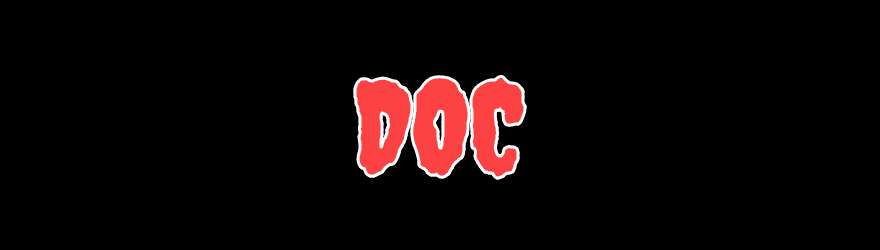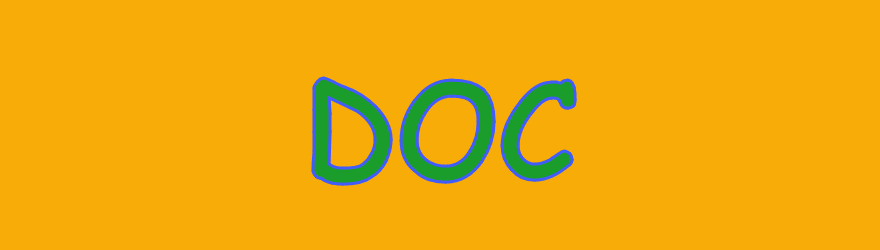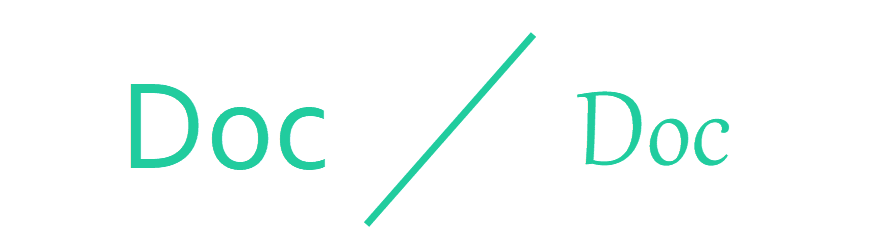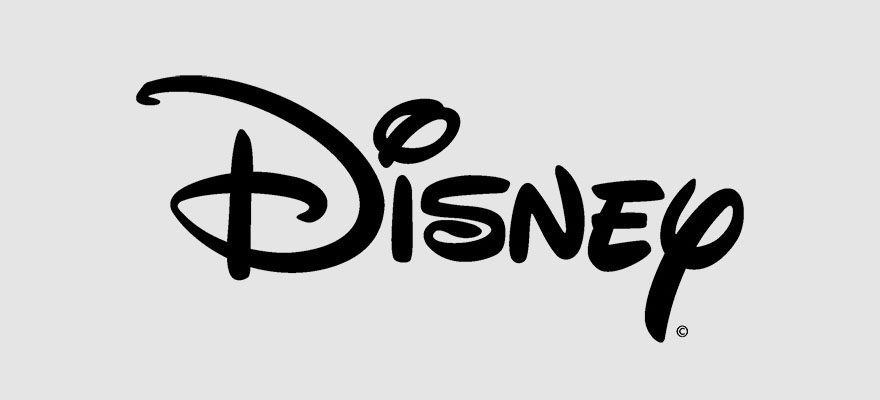
How to Choose the Best Fonts for Logos
Your logo is probably your brand’s single design asset that people see the most. It’s on your website, letterhead, promo materials, emails, icons, shirts, social media pages, and nearly everything else that you work with on a daily basis. So making sure that you choose the best fonts for logos is imperative. Whether it’s fair or not, first impressions matter. So do lasting impressions. And if you’re going be judged and remembered by something, you ought to make it as amazing as possible.
What This Article Is Not
When we talk about choosing the best fonts in this article, we aren’t talking about what you should be using for headers or body text on your website. Or whether you should be using serif or sans serif fonts in your email blasts. While some of the same criteria apply to those as well, we are going to be specifically focusing on what you have in a singular space that gets repeated over and over again.
The difference specifically is that your logo (and its respective font) will be plastered everywhere. So it will be used as a kind of springboard and cornerstone for the rest of your design aesthetic. You will choose complimentary fonts and typefaces for your website and promo materials, but they may not be the exact same. So while you may get some great ideas and starting points for overall designs in this piece, you’ll want to see some of our other font and design articles to flesh out the rest of your page-wide and brand kit decisions.
With that in mind, let’s get started choosing your brand’s new face. Typeface, that is!
1. Consider Your Brand’s Identity and Personality
When we say this, all we mean is to think about what your brand stands for and how people see it. Typefaces and fonts can very much drive the perception of a product or service, and you want one that invites people to think about your brand in a specific way.
For instance, if you’re designing a logo for a new doctor in town. They want their logo to simply be the letters Doc. How would you choose the correct typeface for them?
Well, first of all, you’d remember they’re a doctor. So using a font like Creepster is probably out. And so is this palette, but that’s a different article altogether.
However, if they’re a pediatrician, you might actually choose something playful and like Comic Sans. (Yes, Comic Sans is fine to use on occasion.)
And if they’re, say, a cardiologist or oncologist where the most professional (type)face has to be put forward at all times? You would want to choose something with a personality to match: an elegant script or serif font that’s easy to read and discern, like Corbel or Gabriola.
Regardless, the font you choose absolutely puts off a different feeling, and you’re going to need to look at whom you’re designing for and make sure that your choice lines up with theirs. That said, can you think of one particular element that all of these examples have in common? They’re readable by the largest swath of people who will see it.
2. Keep Things Legible
When choosing a font, making sure people know what it says is paramount. Take the Disney logo. We’ve all seen it thousands of times.
We know that it spells D I S N E Y. Right?
Wrong. Well, kind of. A number of people out there see that caligraphic D as a funky, backward G. They just can’t see the D.
Now, for Disney, modeling their logo after the founder’s signature is worth more than a subset of the population misinterpreting their logotype. Unfortunately for all of us, we are not Disney. So we have to be much more careful about the legibility of our fonts.
Using even a single ambiguous letter can make your logo go from memorable to forgettable. Or even worse to what in the world is it?
Honestly, this isn’t that hard to do. Just keep a few things in mind as you search around for the best fonts for logos:
• If the font has serifs, don’t let them overlap and obscure other characters
• Consider the readability at multiple sizes. Make sure you can read it at 5px, 12px, 500px, etc. Some get blown out of proportion when scaled.
• Like above, make sure the kerning and tracking is on point (though leading may be less of an issue). This is a very important issue for some sans-serif fonts as the letters can bleed together more easily.
• Check to make sure each character in the typeface is unique (such as the capital I, the lowercase l, and the numeral 1. If any of them use the same character, they fail the il1 test, and you should choose a typeface with better readability for your logo